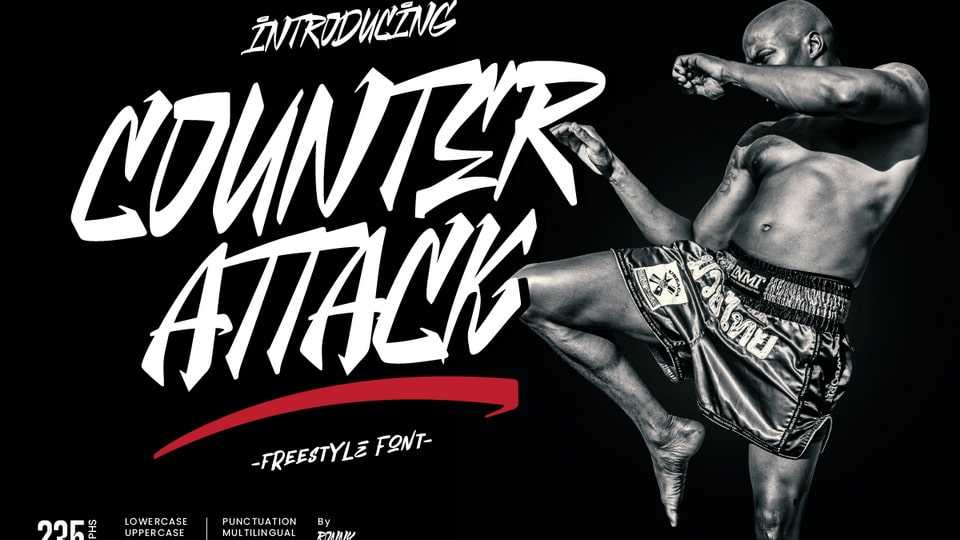
Download Counter Attack font, a typeface that emphasizes a more informal and expressive style. It is often used in designs that require a sense of spontaneity or creativity, such as logos, posters, or album covers.